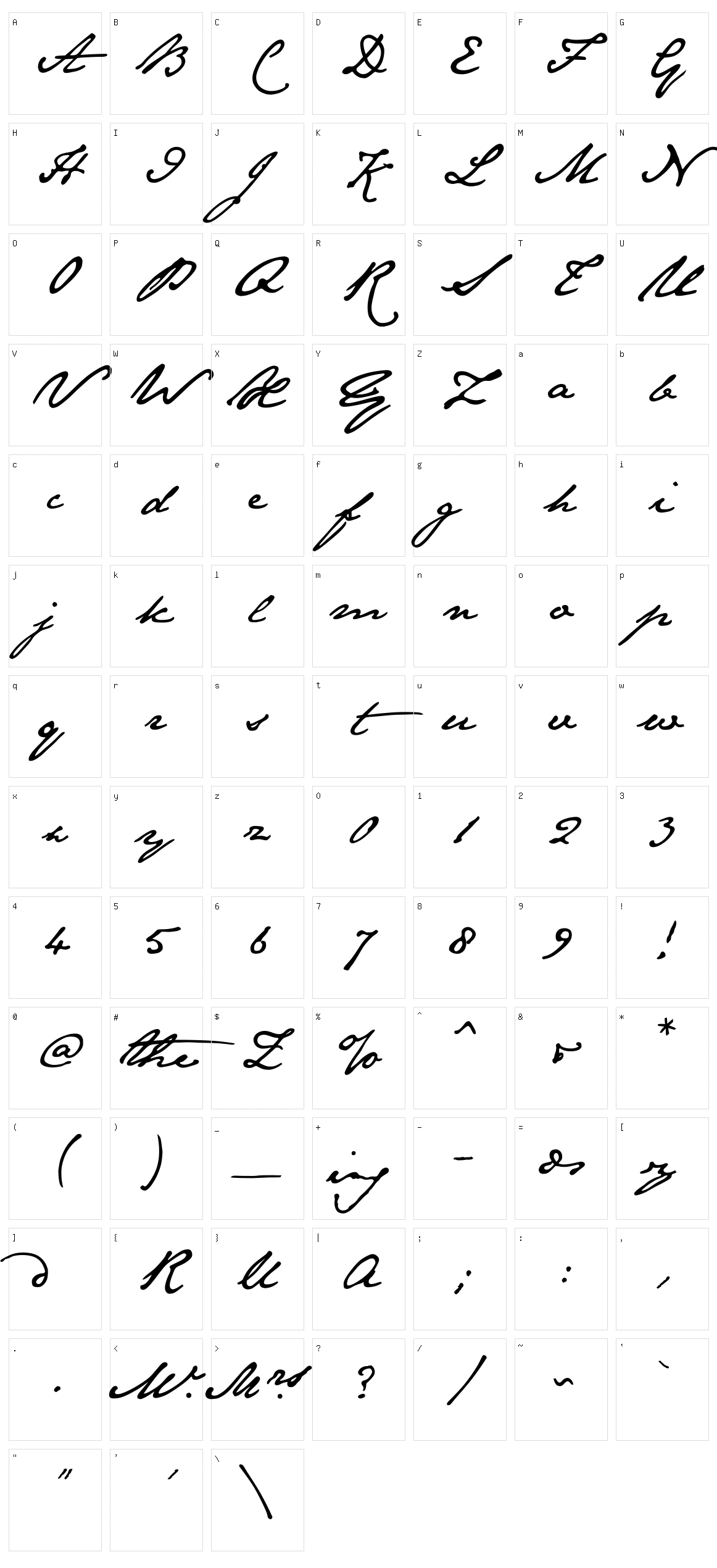
JaneAusten 1.0
Made up out of characters penned by Jane Austen, this font can't of course quite equal her handwriting. Its aim was to create something like an average image. Naturally, this has endowed it with the principal flaw of all typefaces: it's looking far too regular.
There are some peculiarities to this font.
-- On the number sign, you will find a complete *the*. Unfortunately, it's ill adapting to any use in the middle of a word.
-- On the Dollar sign, you'll find an alternate Z.
-- The section sign has been replaced with an alternate C, sitting on the line (as opposed to the regular one, reaching far below).
-- The + sign will show up as an *ing*. It's meant to be used at the end of a word, and will look a bit odd when employed in words like "finger".
-- The = sign contains a *ds*, likewise taken from a verb-ending; nevertheless, this one won't look too bad when placed in the middle of a word.
-- On the degree sign, you'll find a *gr*, which should adapt well to all contexts.
-- The abbreviation *Mr.* is to be found on the less sign, and...
-- ...the abbreviation *Mrs.* on the greater sign
-- The left bracket contains an alternate z.
-- The right bracket contains an alternate d -- to be used at the end of a word.
-- On the left curly bracket, you'll find an alternate R, sitting on the line (as opposed to the regular one, reaching far below).
-- On the right curly bracket, there is an alternate U, which is fit, moreover, in shape as well as metrics, to be used as a double l.
-- The bar and broken bar sign have turned into an alternate A.
-- The Euro sign has become an alternate E.
-- The Yen sign has been transformed into an alternate H.
-- The + sign has moved on to the dagger.
-- The = sign will be found on the double dagger.
-- And the degree sign has flown off to the lozenge.
There is only one currency included in this font, e.g. the Sterling sign; and if you really want to write like Jane Austen, you'll have to employ the German ligature ß -- since she is very consequently and constantly using it for a double s.